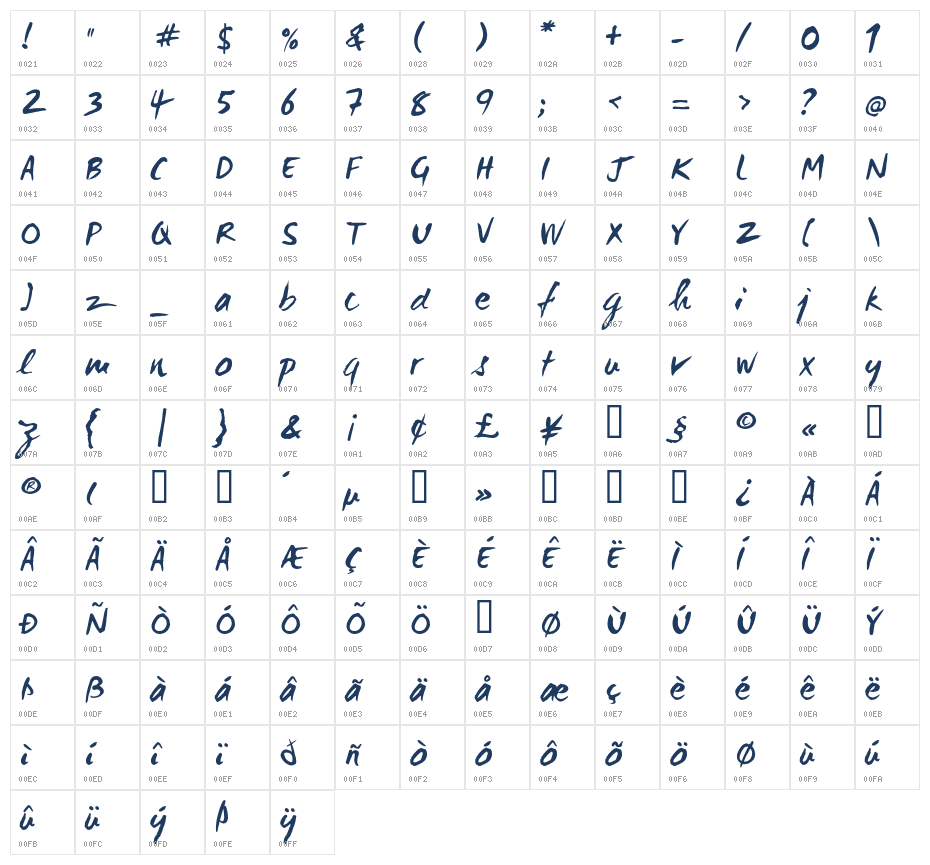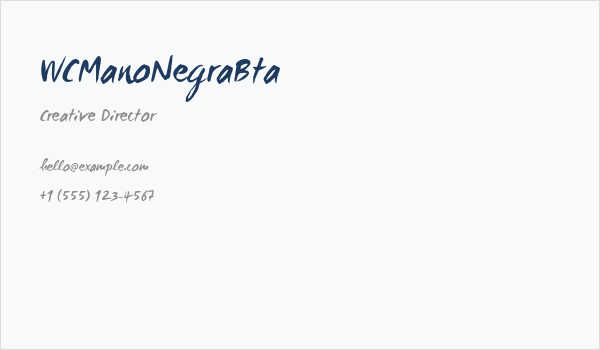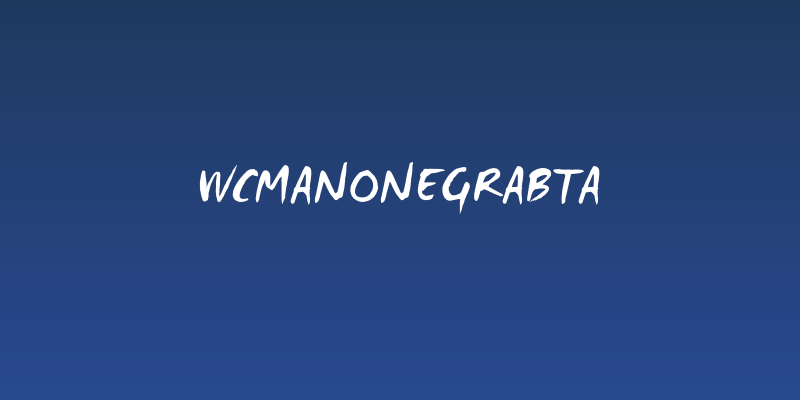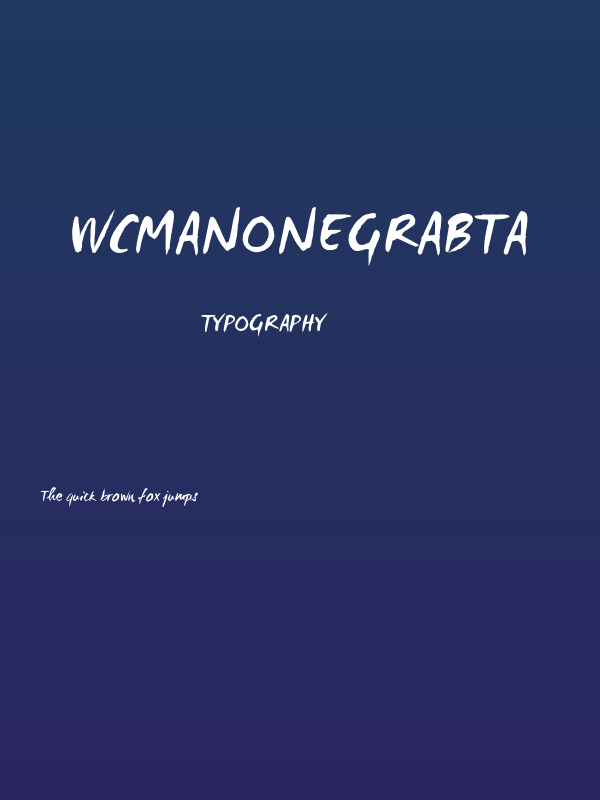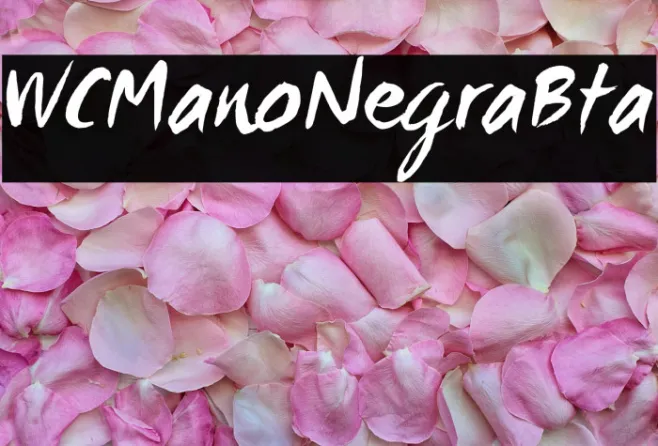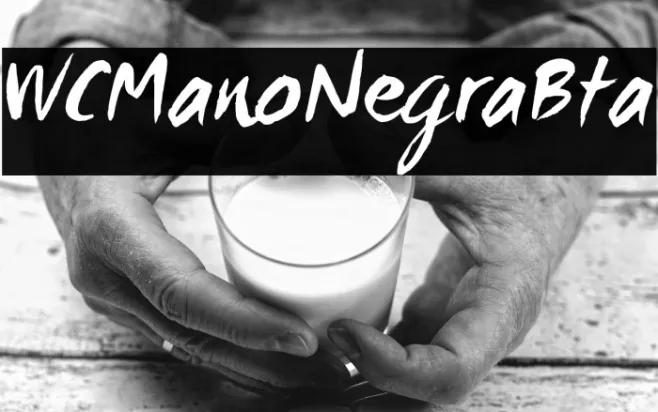
WCManoNegraBta Font
WCManoNegraBta Description
A casual, handwritten script font with a brush-like appearance, featuring slightly irregular strokes and a dynamic, energetic style.
| Overall Style | Casual, Handwritten, Brush |
| Use Case | Headlines, Logos, Invitations, Creative branding |